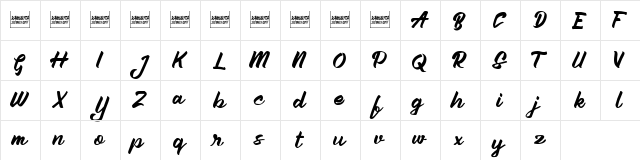
Aleena (demo) Regular Font Preview
Aleena (demo) Regular
Aleena (demo) Regular Font Details
| Designer | kamukita std |
Design Context for Aleena (demo) Typeface
Aleena (demo) is a composed and adaptable typeface that performs quietly and consistently across a wide range of design contexts.